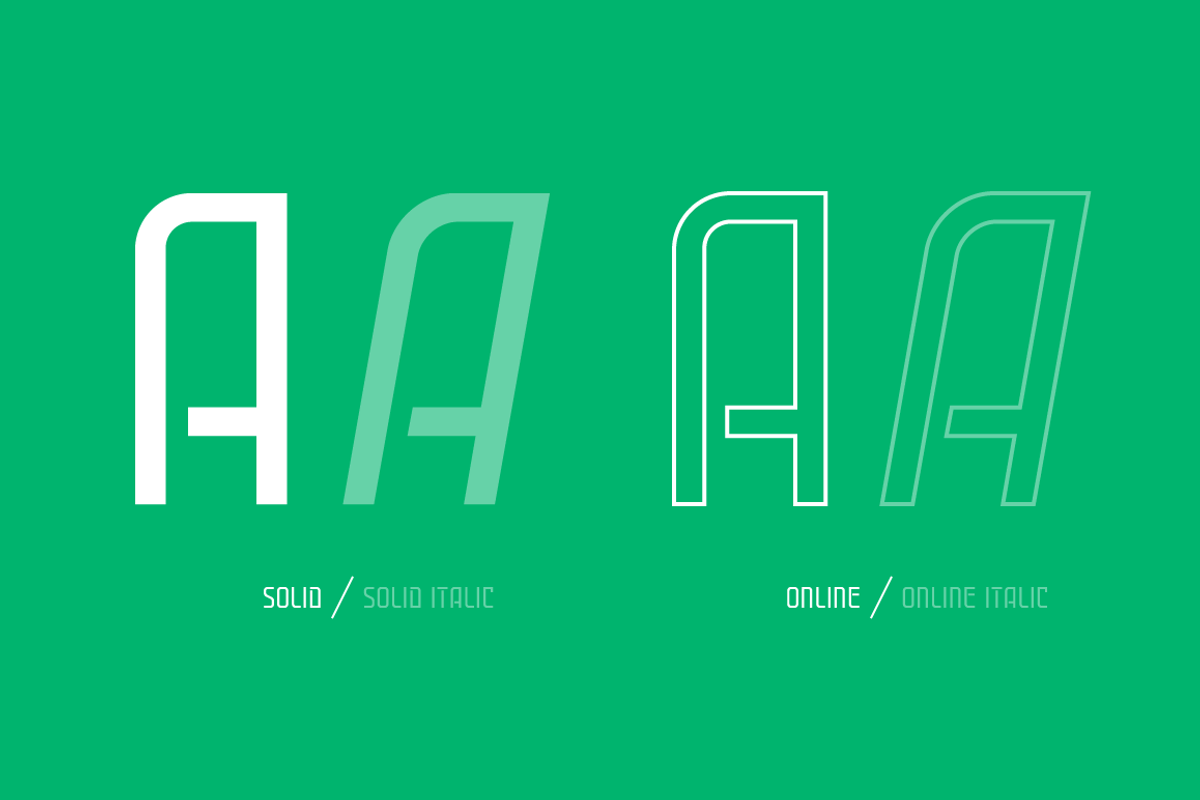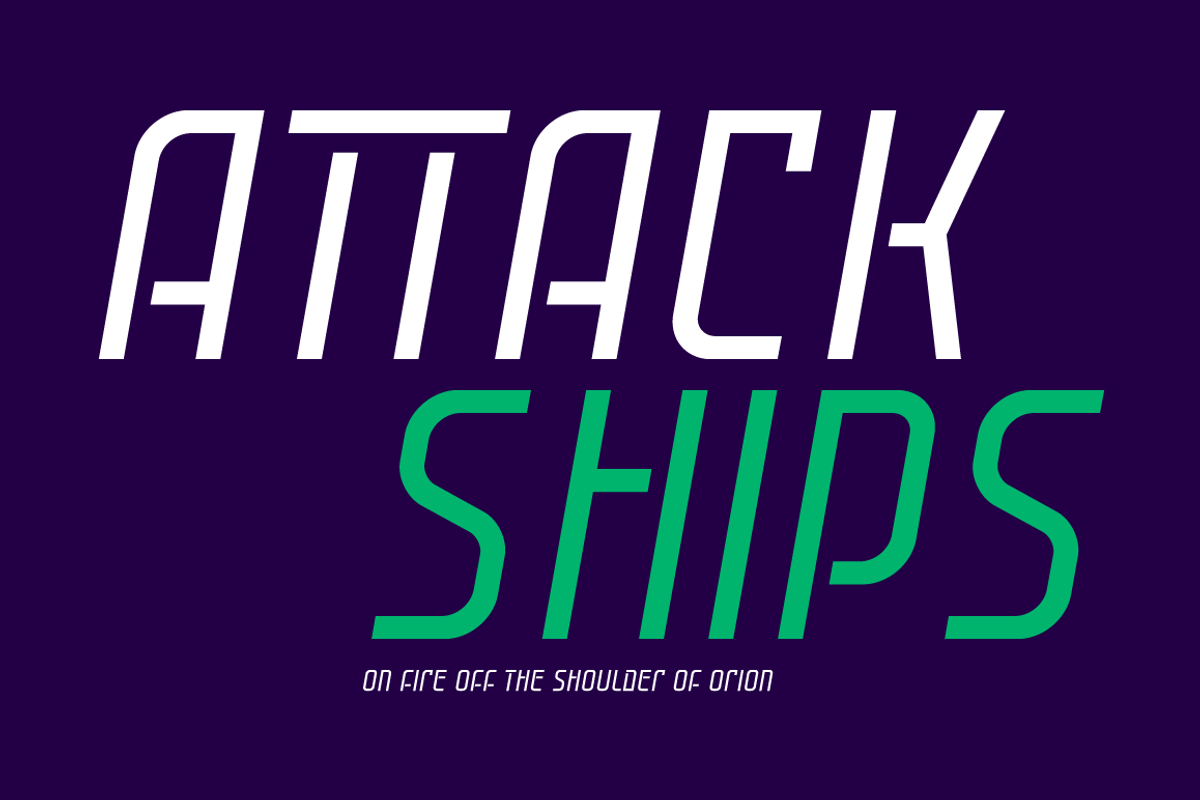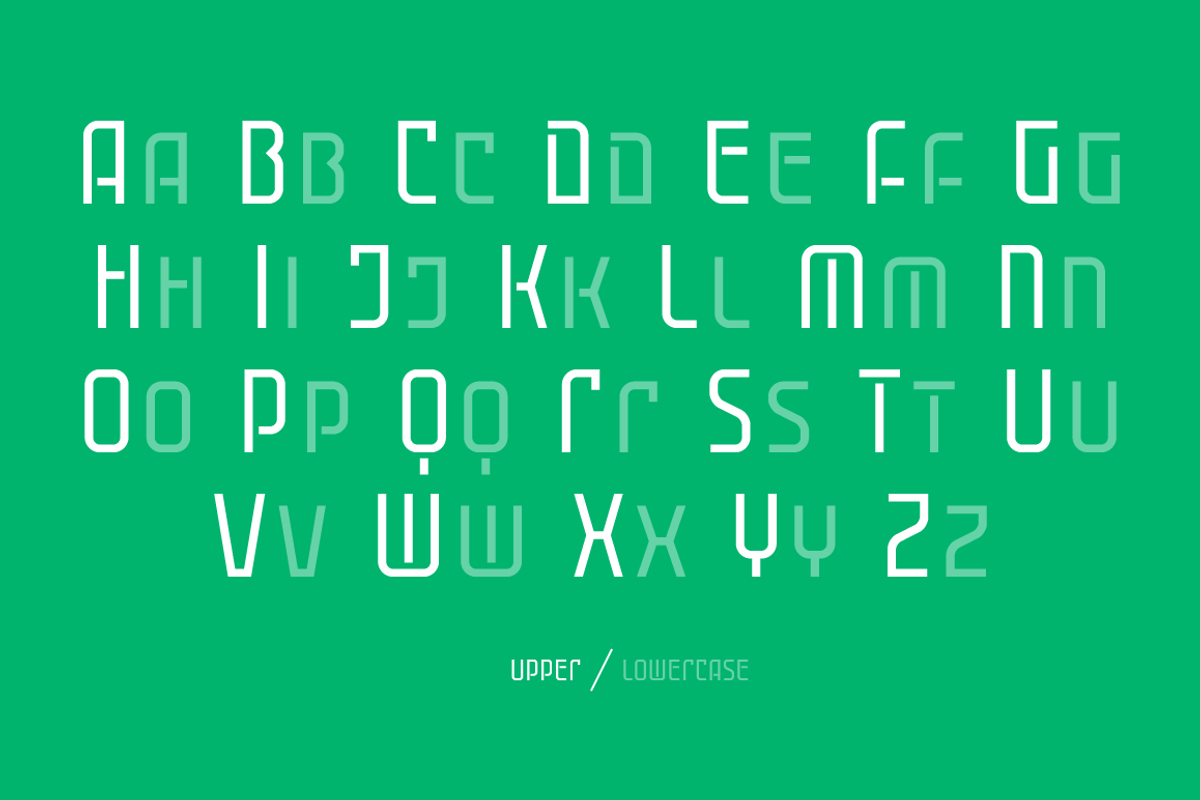
Cuantica Font Family
Cuantica Font Family by Graviton Font Foundry is a font selected for branding, posters, packaging, typography.
Why Cuantica Font Family is worth a look
Cuantica Font Family by Graviton Font Foundry fits naturally into Branding, posters, packaging, typography.